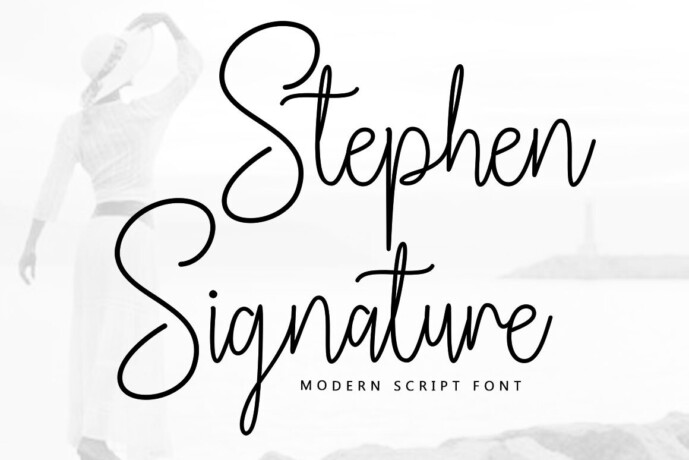
Stephen Signature Font
Designer: queenopstudio
Stephen Signature is a sleek and stylish modern script font with a personal, handwritten feel. Its fine strokes and clean connections evoke the sophistication of a luxury signature, making it perfect for logo design, business cards, and fashion branding. Whether used in all caps or cursive phrases, Stephen Signature adds class with an effortless charm.